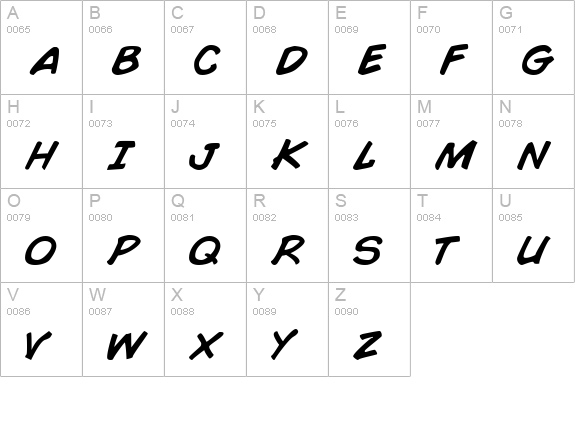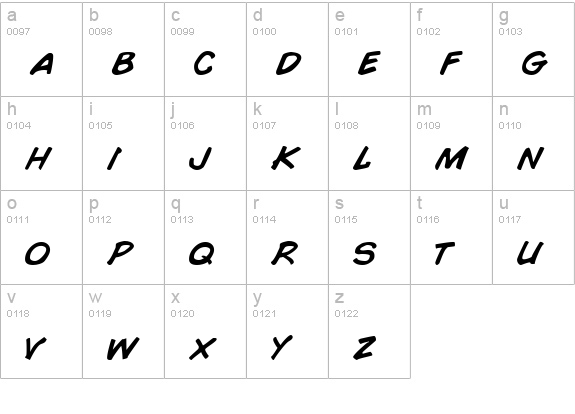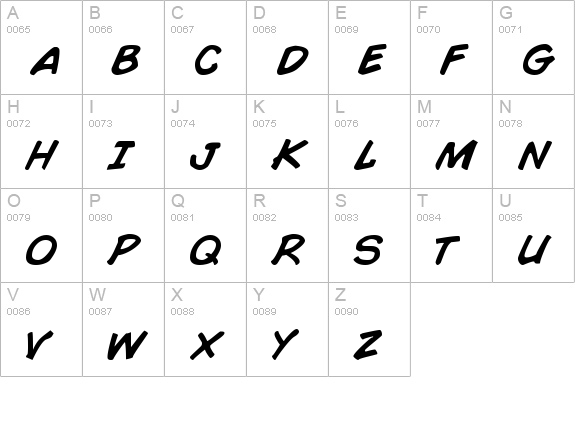
Comic Book Normal Font Details
Comic Book Normal font is a fun and playful typeface that perfectly captures the whimsical charm of comic books. With its bold and dynamic letterforms, this font is perfect for adding a touch of excitement to your designs. Whether you're creating a comic book, poster, or any other project that calls for a touch of creativity, Comic Book Normal font is sure to make a statement. And the best part? Comic Book Normal font is available for free to download at FontsMarket.com. So go ahead and unleash your inner superhero with this fantastic font today!